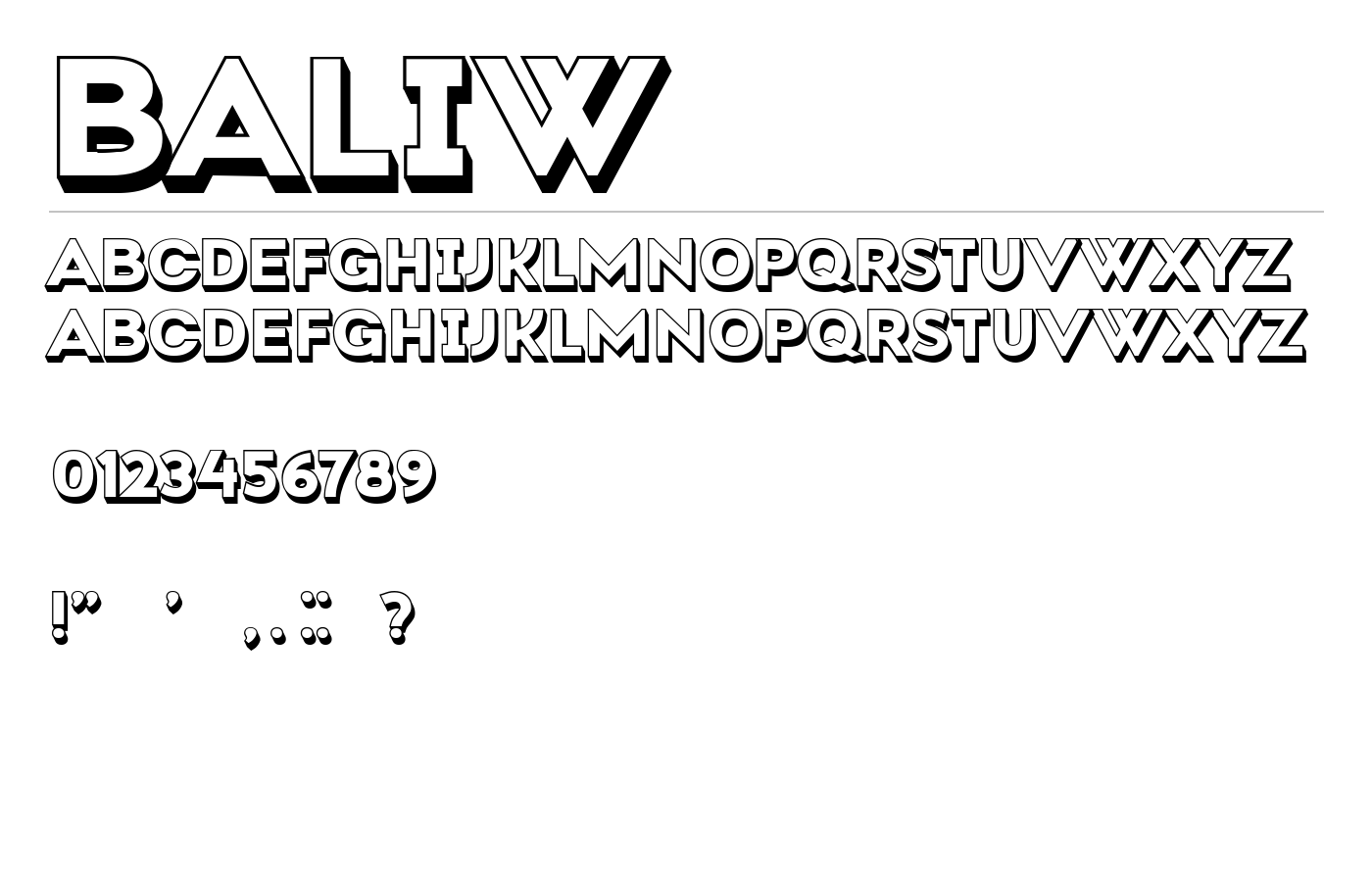
Baliw is a bold, playful sans serif font characterized by its strong geometric shapes and eye-catching three-dimensional shadow effect. Its all-caps design with thick strokes and sharp edges gives it a fun, energetic vibe, making it ideal for headlines, posters, and branding that seeks a dynamic, youthful personality. This font works best where attention-grabbing impact is needed, such as in logos or promotional materials.
Baliw Font
About Baliw Font
| Font family | Baliw Font |